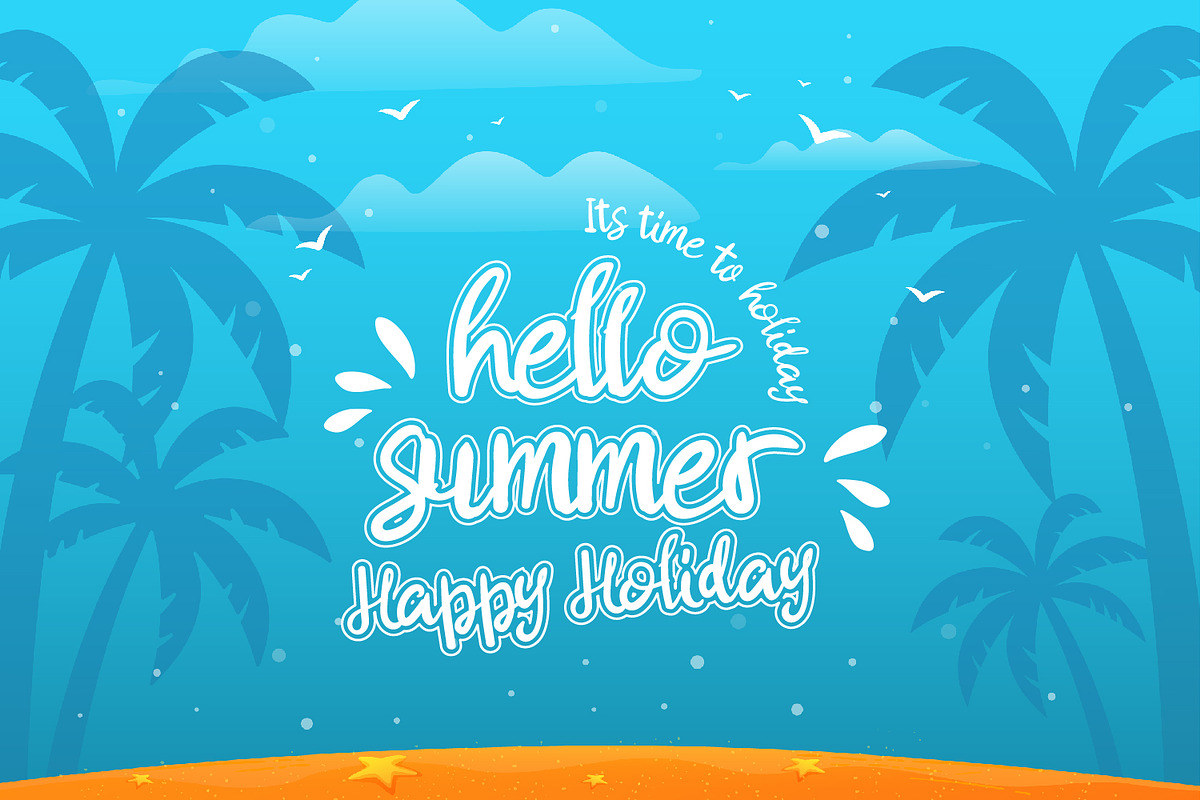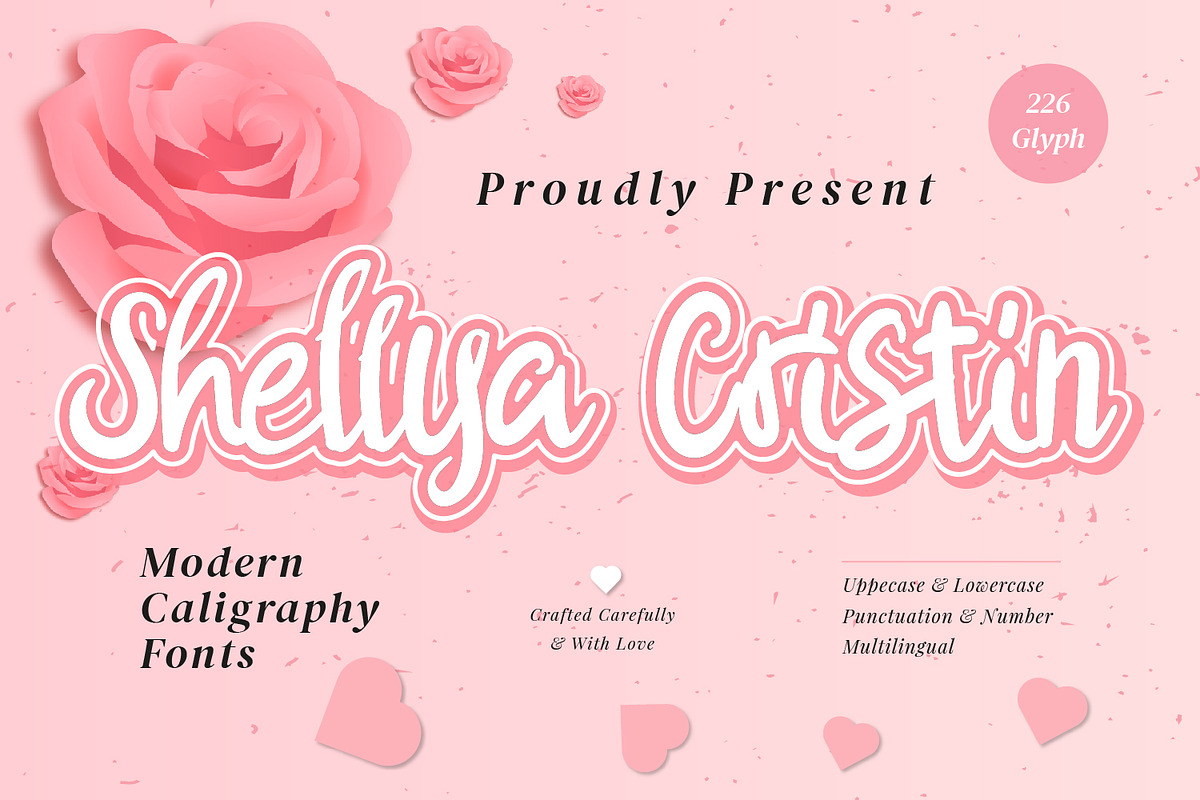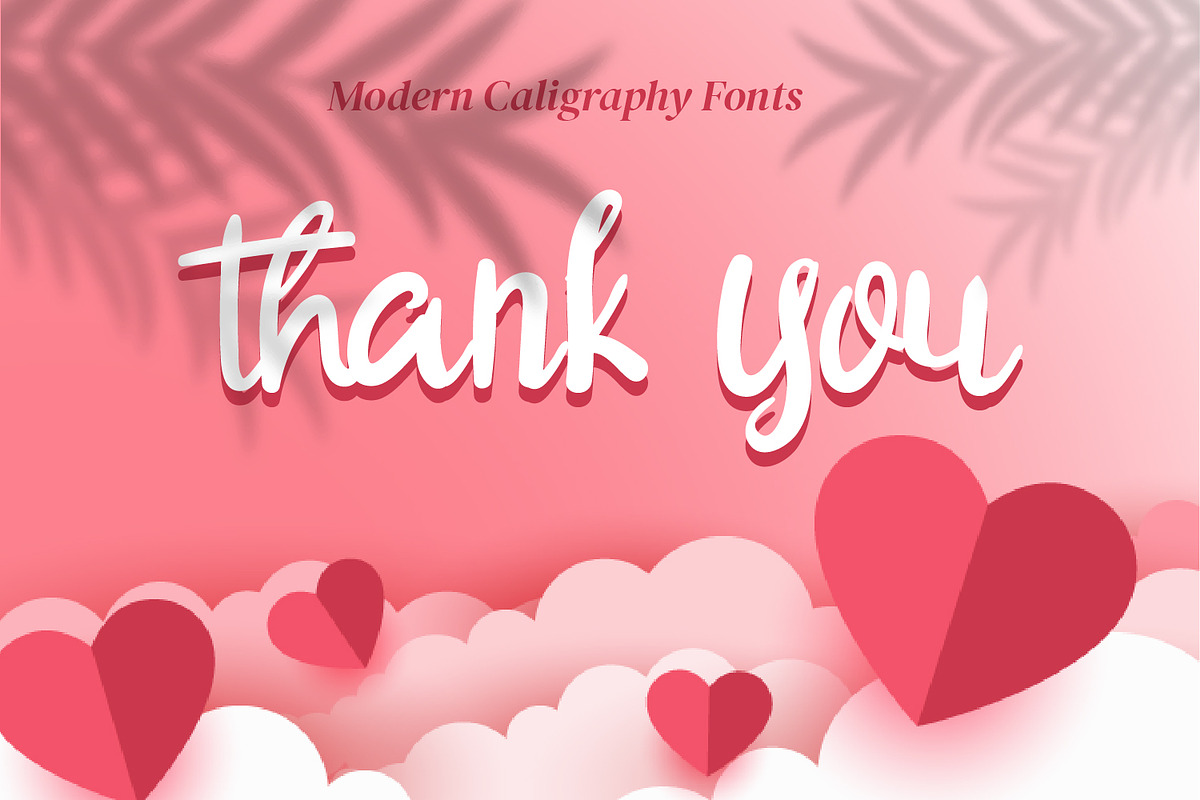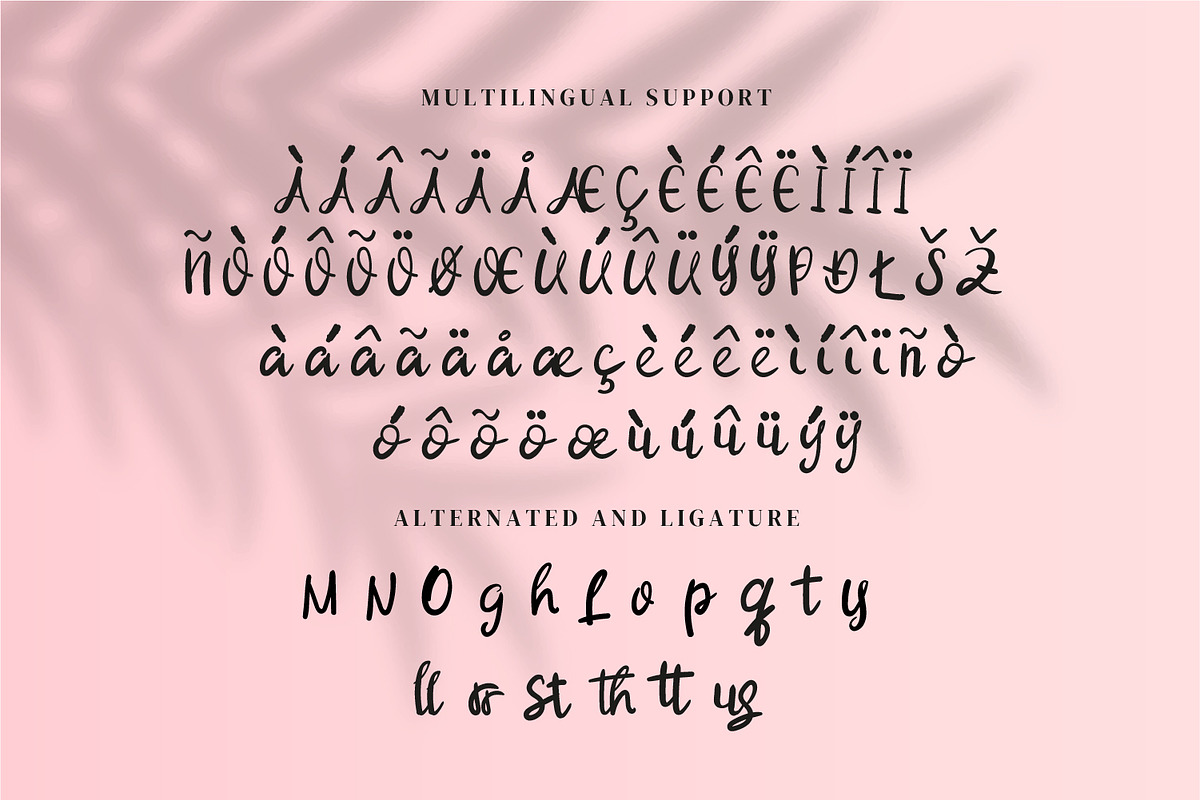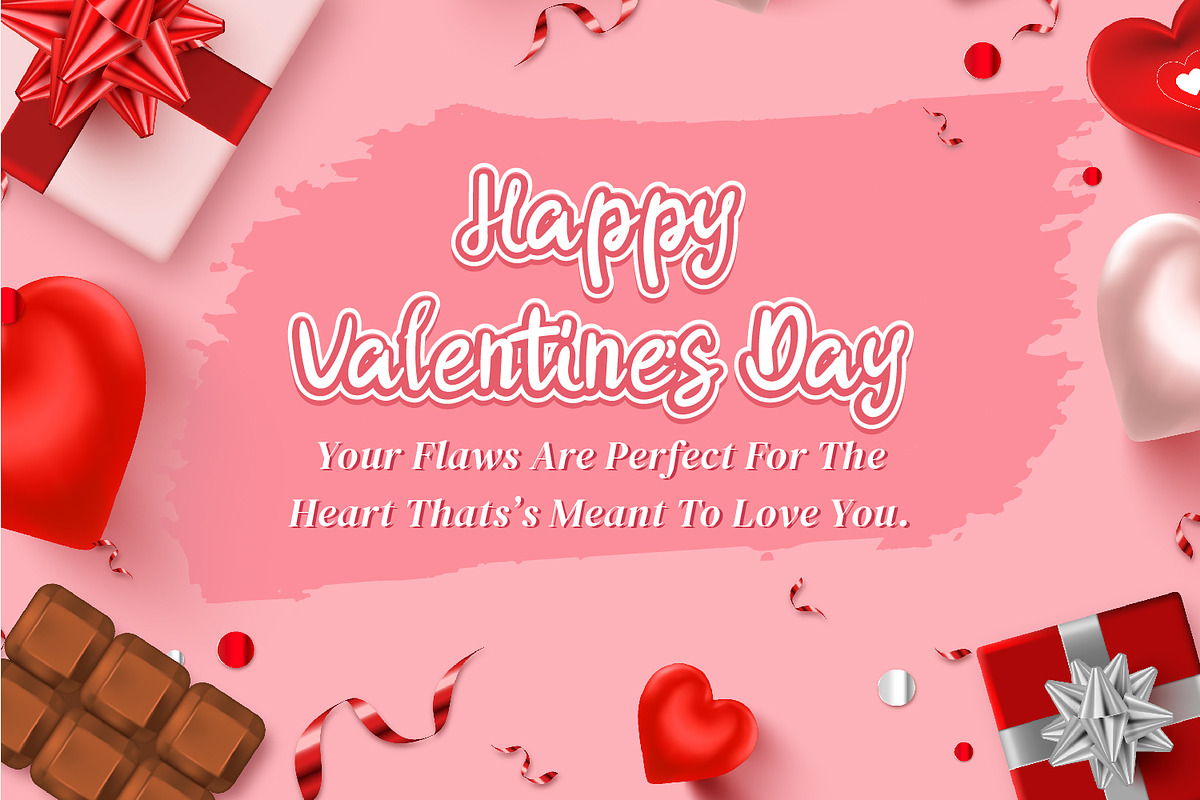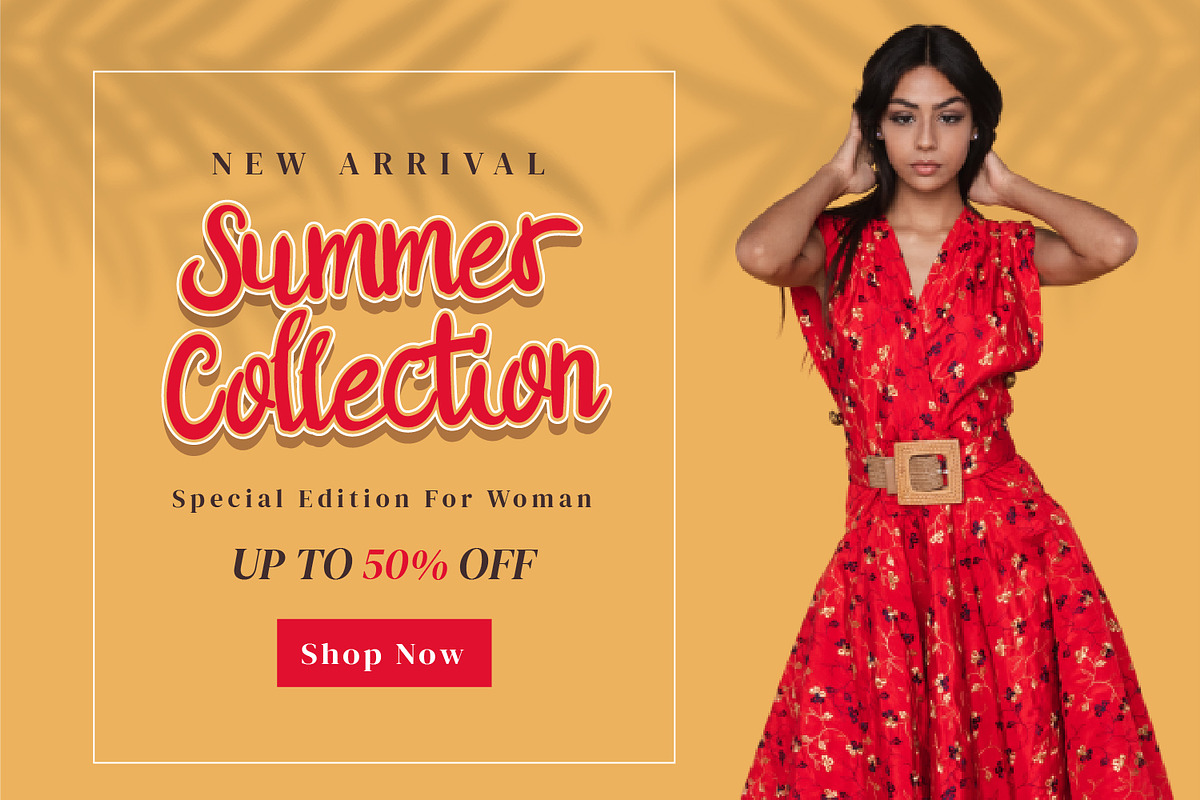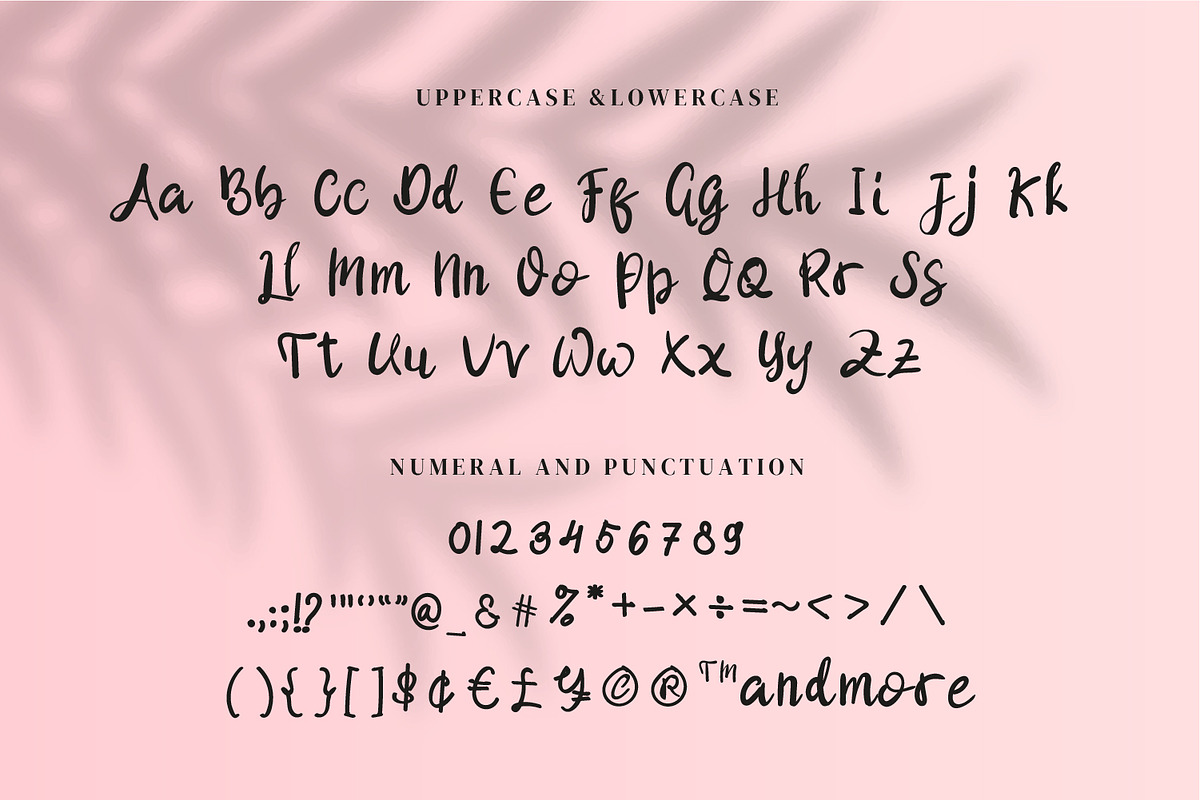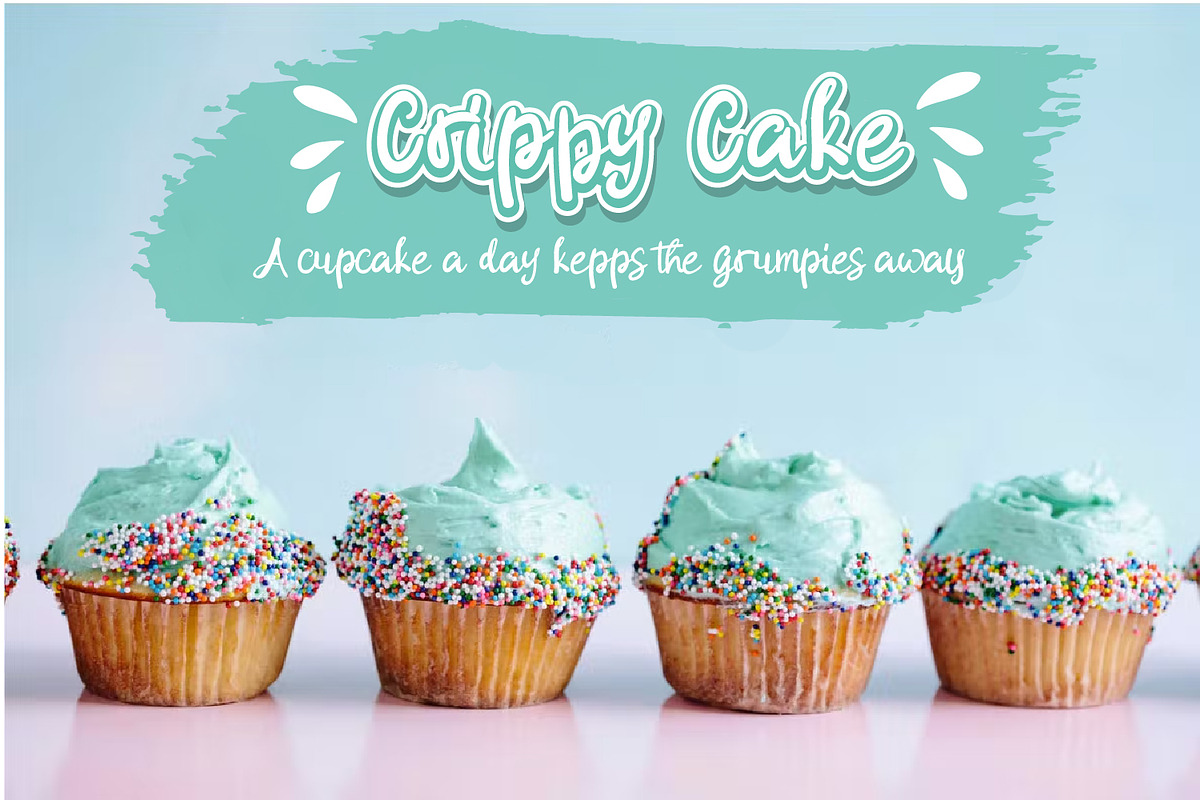
Shellya Cristin - Modern Script font
Shellya Cristin - Modern Script fonts
Shellya Cristin is a Modern script font, will be suitable for any projects such as logo’s, branding projects, homeware designs, product packaging, mugs, quotes, posters, shopping bags, t-shirts, book covers, name card, invitation cards, greeting cards, label, photography, watermark, special events, and all your other lovely projects that need beautiful handwriting taste.